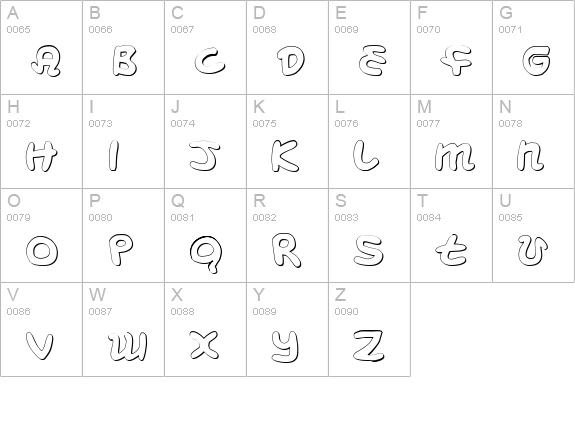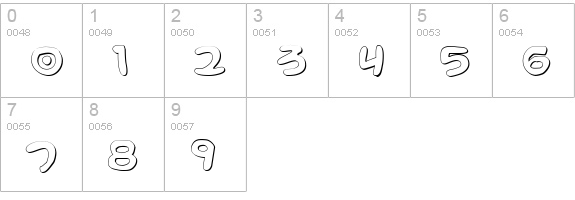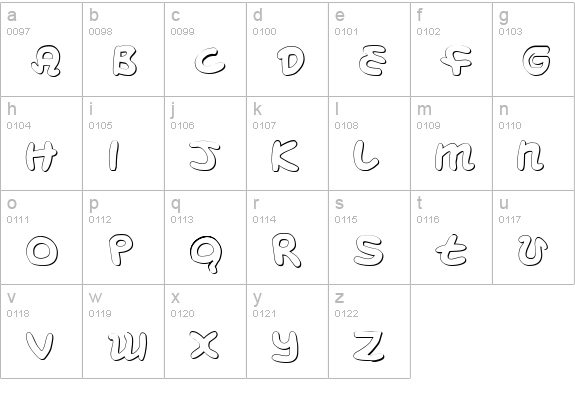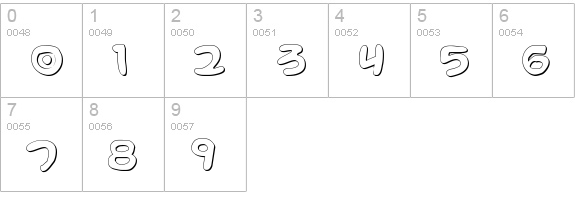
Magic Beans 3D Font Details
The Magic Beans 3D font is a whimsical and enchanting typeface that will add a touch of magic to your design projects. With its playful 3D effect, this font is perfect for creating eye-catching headers, titles, and logos. Each letter is intricately designed to resemble a magical bean sprouting with creativity and imagination. This unique font is not only visually appealing but also versatile, suitable for a wide range of design applications. Whether you're working on a children's book, fantasy-themed project, or simply want to add a touch of fun to your designs, Magic Beans 3D font is sure to captivate your audience. Best of all, this enchanting font is available for free download at FontsMarket.com. Don't miss out on the opportunity to add this magical font to your collection and let your creativity soar with Magic Beans 3D font.